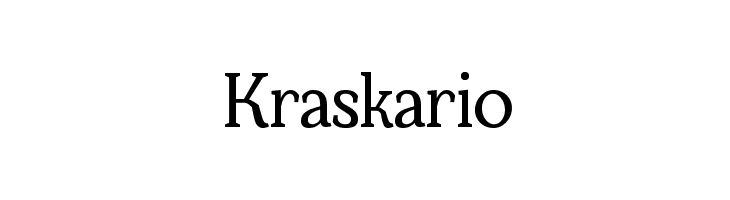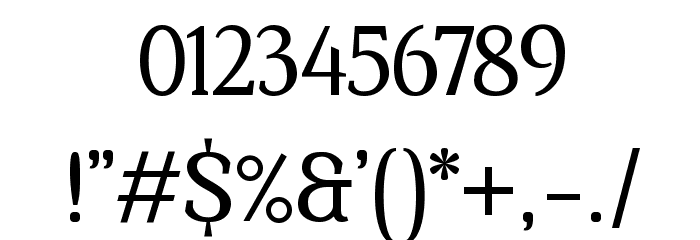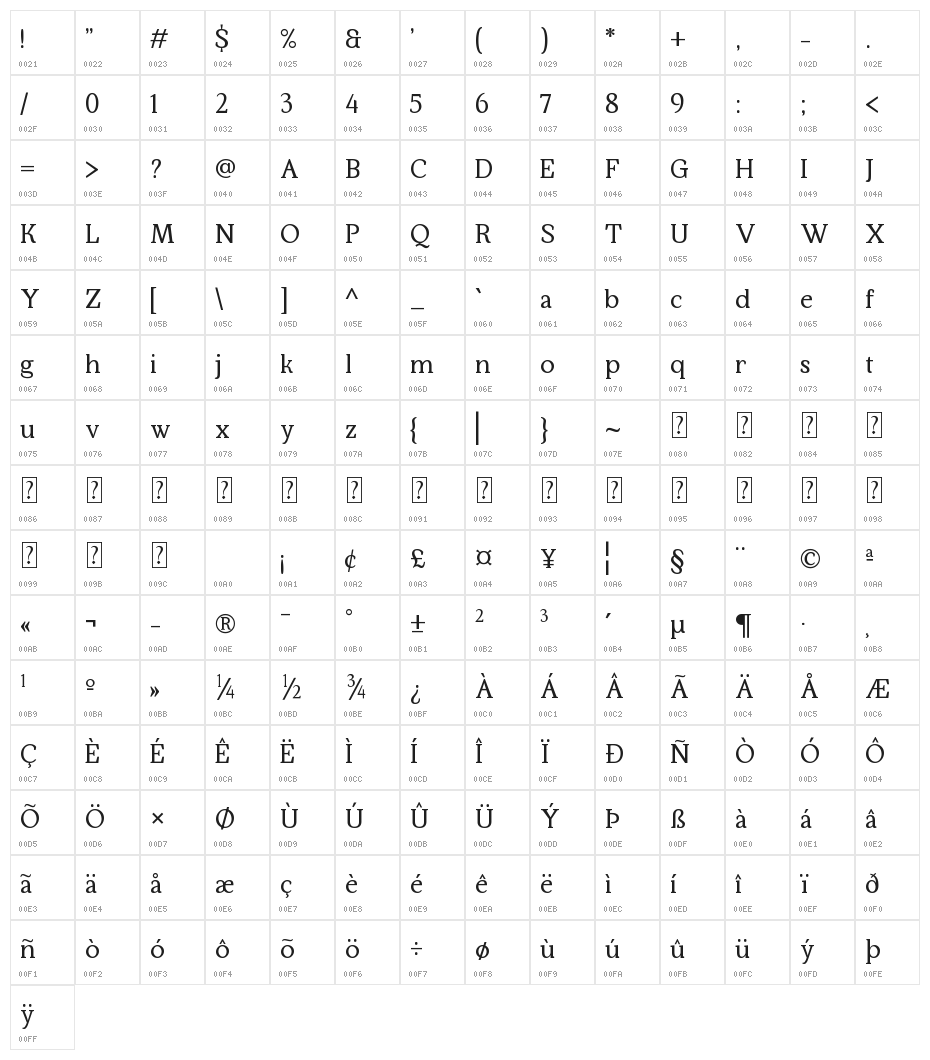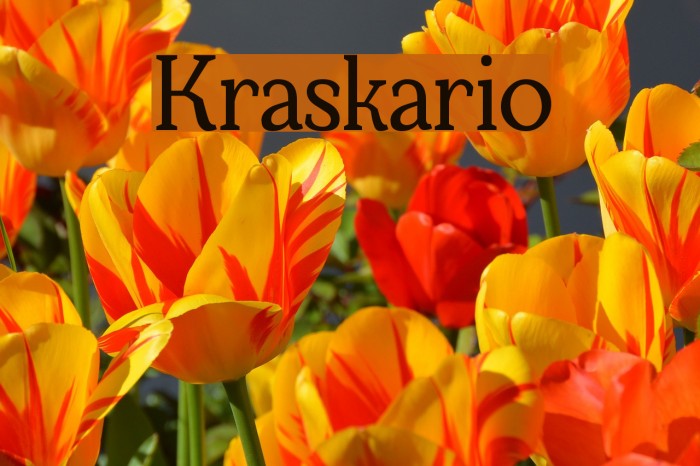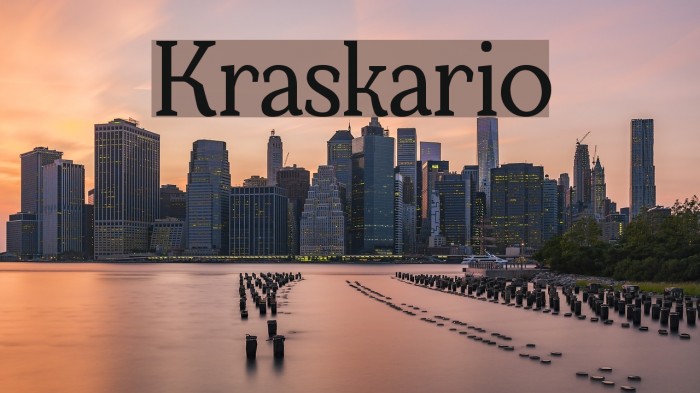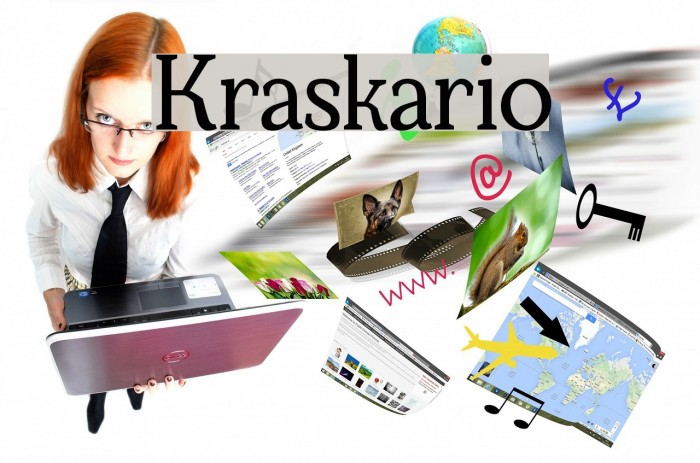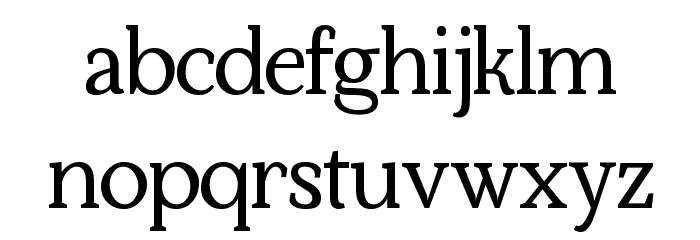
Kraskario Font
Kraskario Description
This font features a classic serif design with elegant and refined strokes. The uppercase letters are bold and commanding, while the lowercase letters maintain a balanced and readable form. The numerals are clear and consistent, matching the overall style of the alphabet. Special characters are well-integrated, providing versatility for various types of text. The font's structure is both traditional and sophisticated, making it suitable for formal and professional settings.